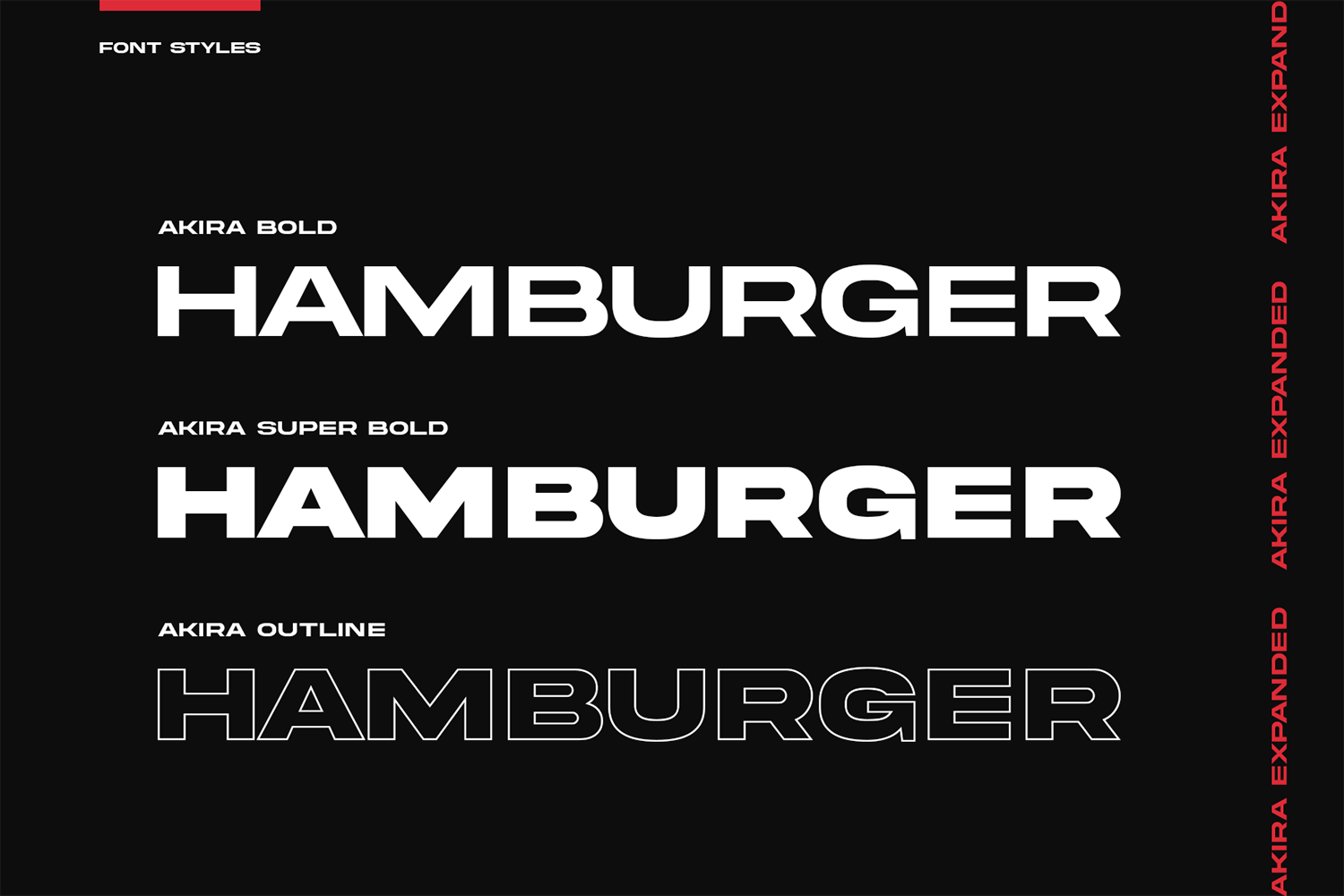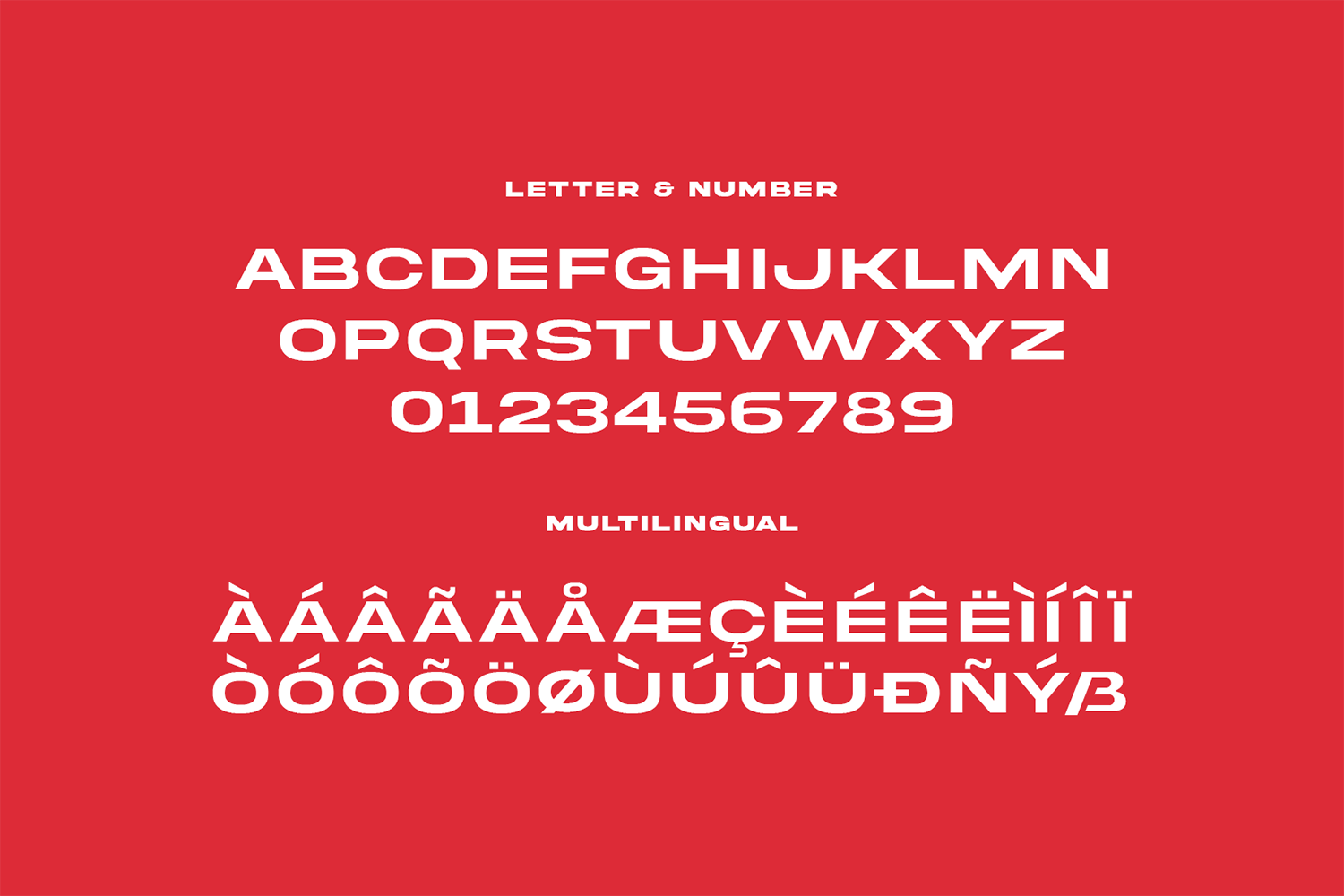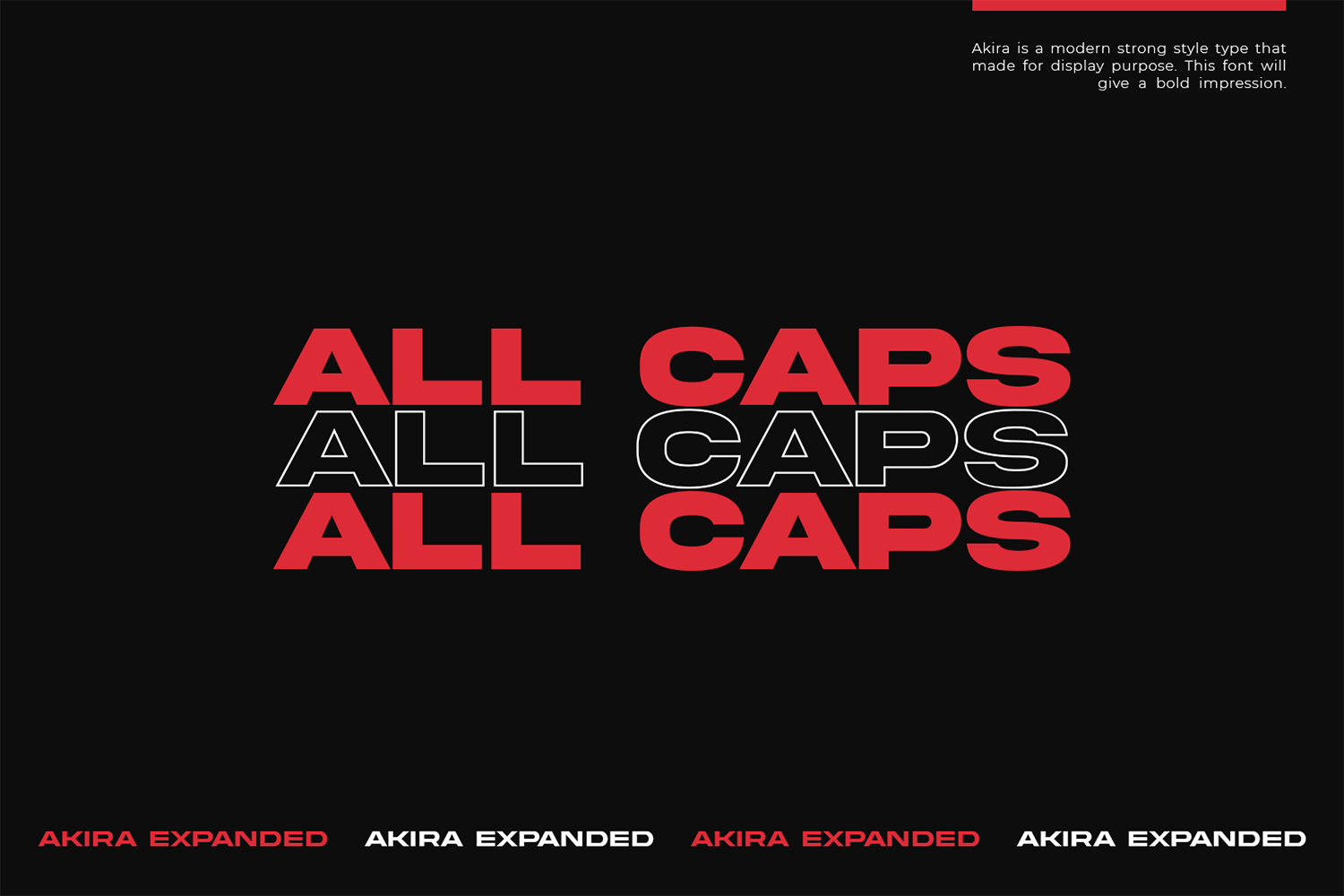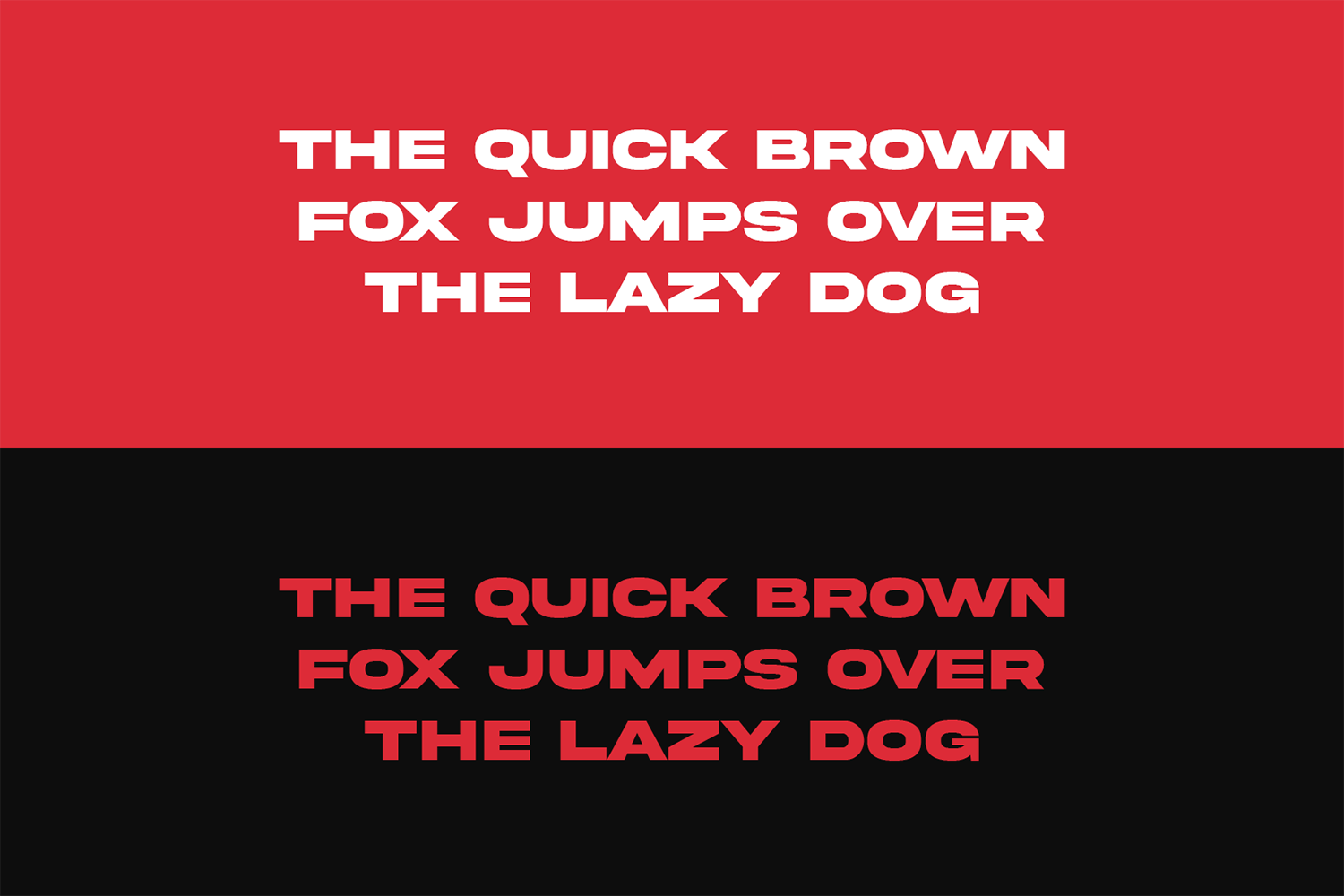
Akira Free Font
Akira Free Font brings a modern and strong impression of your design. With a bold style, make this font suitable as the main text/header text on a website or layout design. Akira expanded also includes alternative fonts that make it easy for you to make customizations. This free typeface was designed by the talented Fadiel Muhammad. If you like it don’t forget to check out the full version.